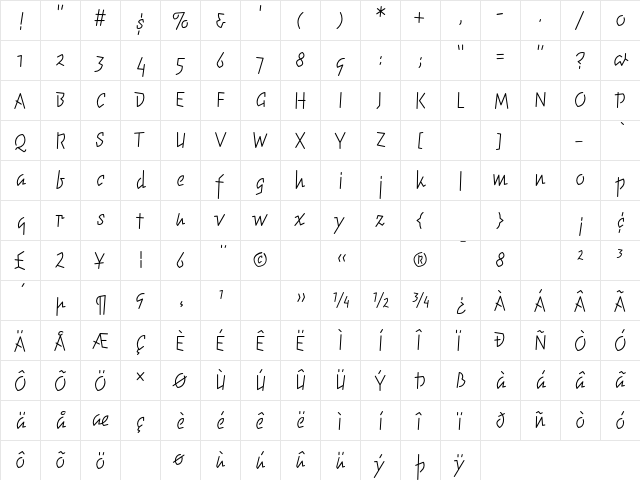
Elektrix-Light Light
Design Context for Elektrix-Light Typeface
Elektrix-Light is a composed and adaptable typeface that performs quietly and consistently across a wide range of design contexts. Its slender proportions lend an understated elegance to any composition.